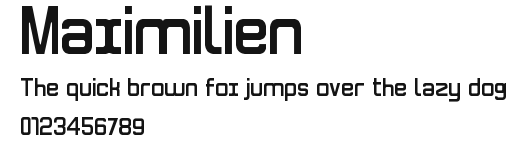
• Font Name: Maximilien
• Full Font Name: Maximilien Regular
• Manufacturer: Matthieu Lonton
About Maximilien.ttf
Maximilien.ttf is a modern, elegant sans-serif font designed for ultimate readability and visual harmony. Perfect for branding, headlines, web design, and print materials.